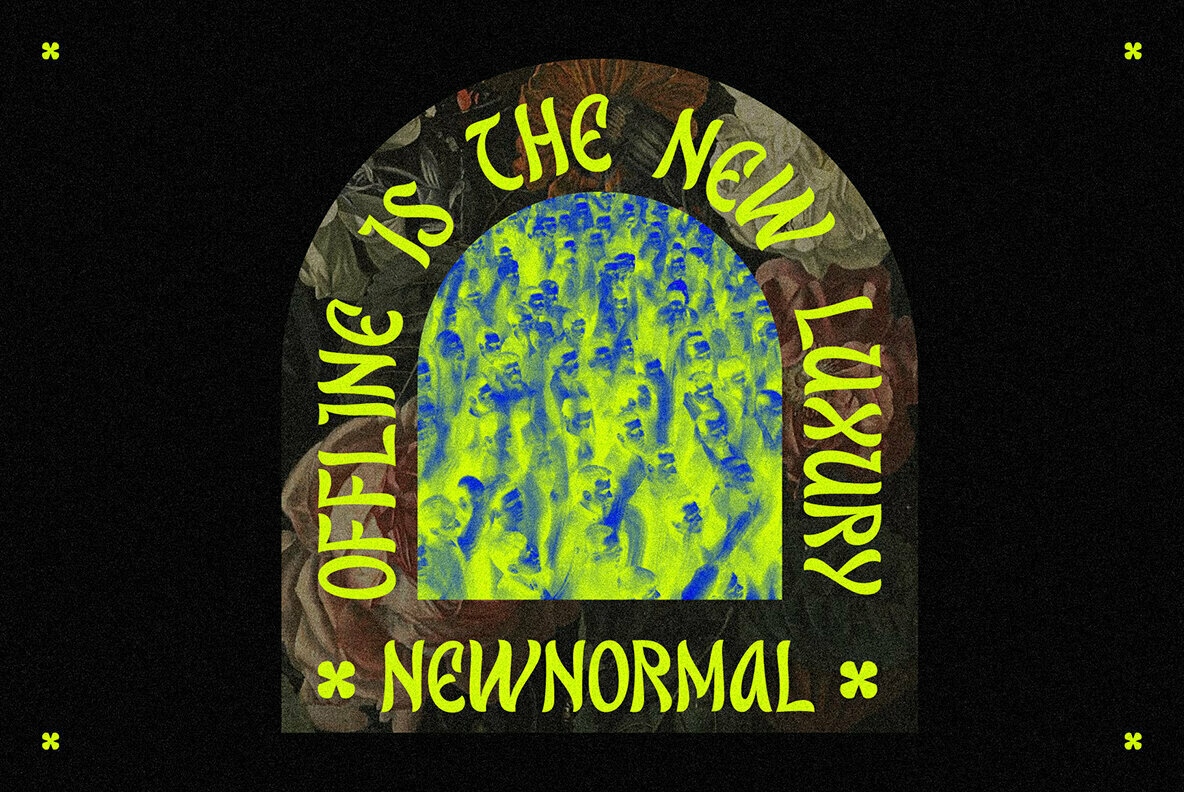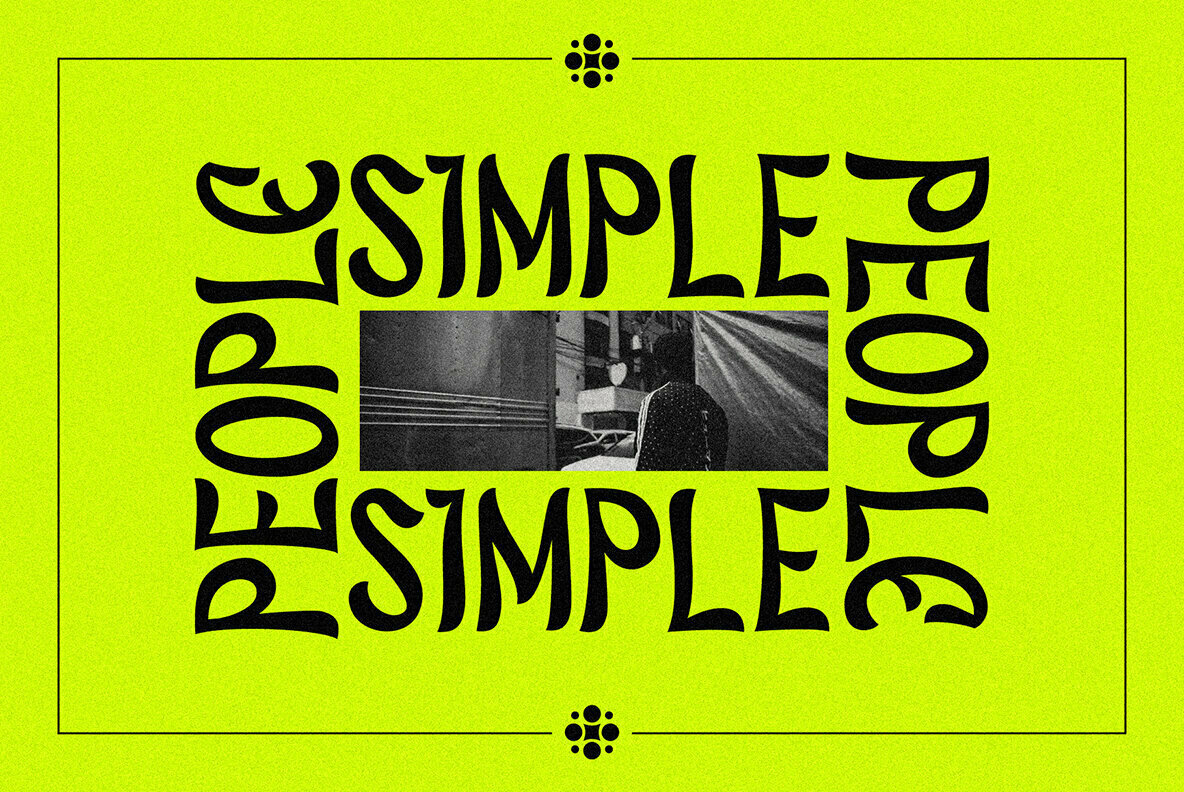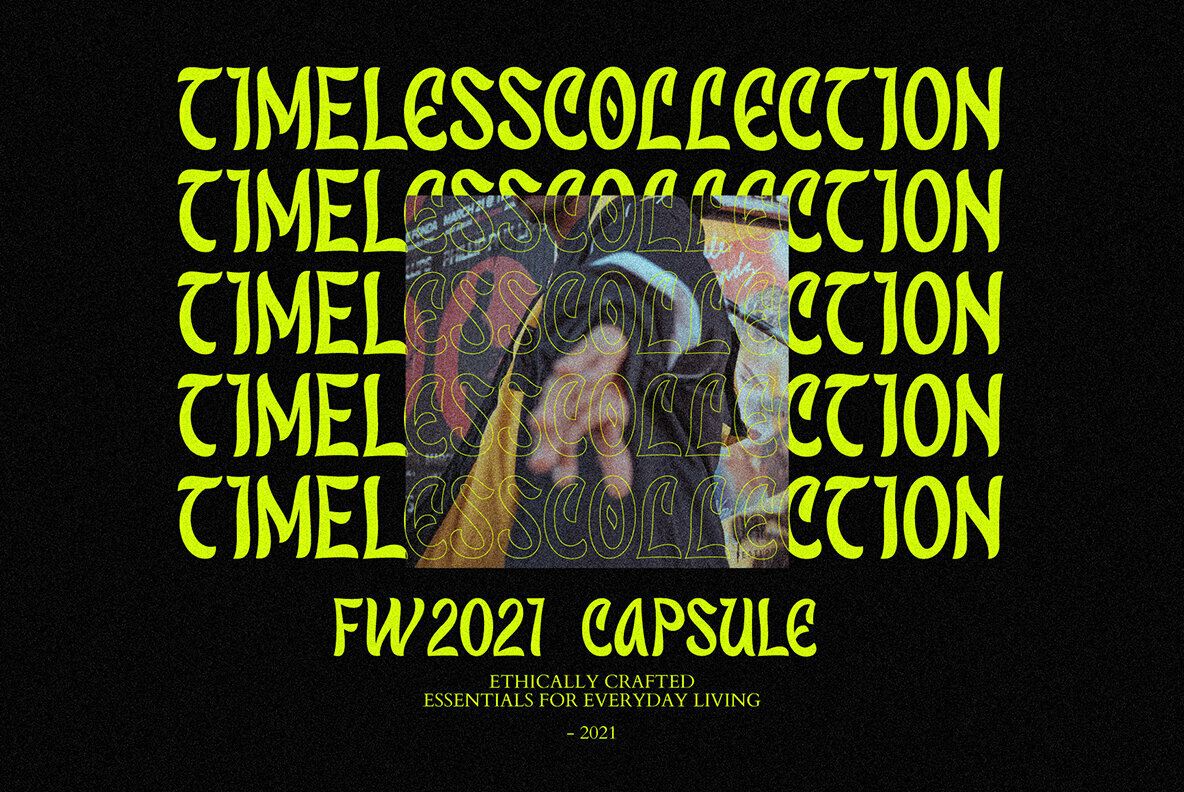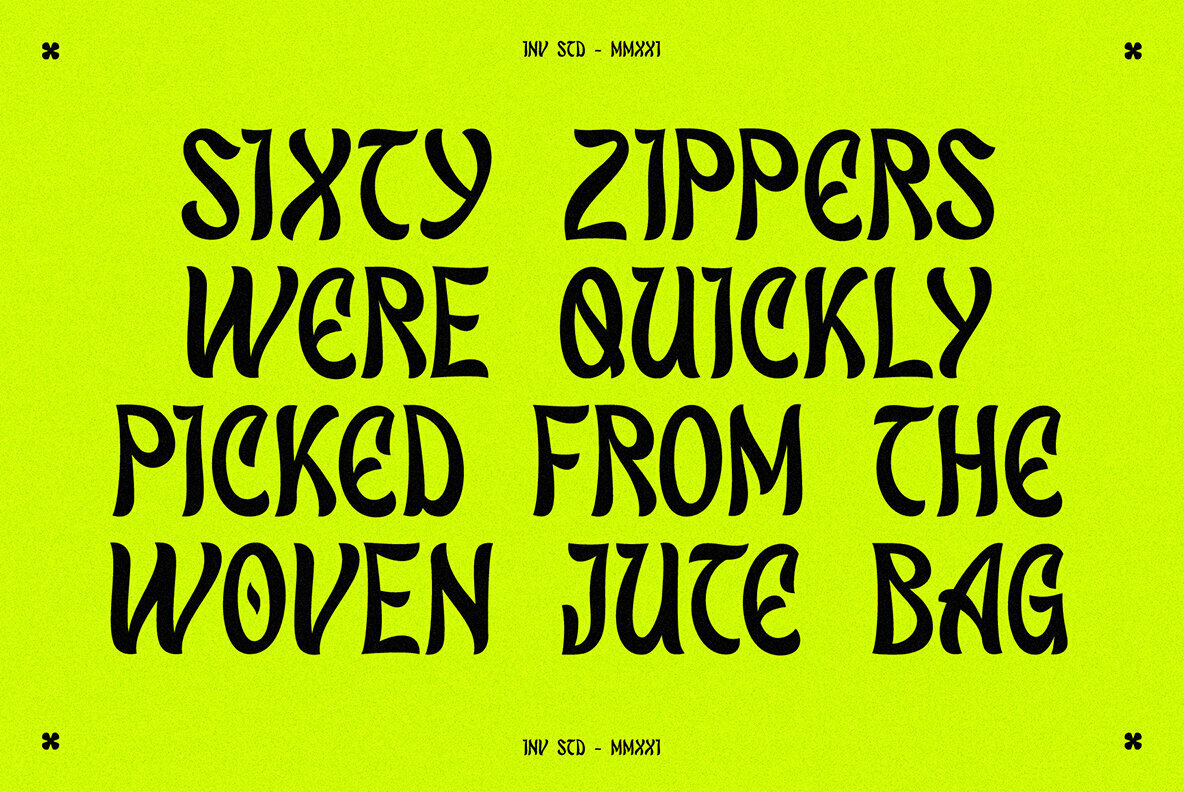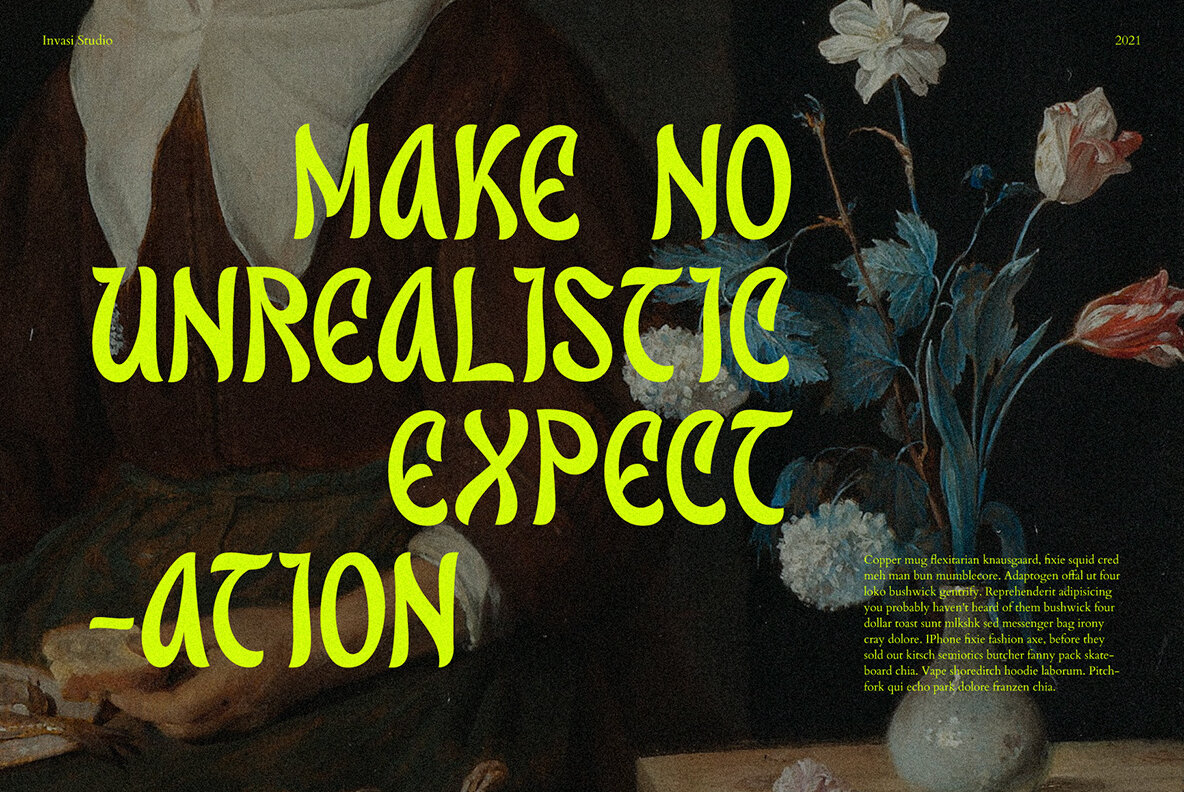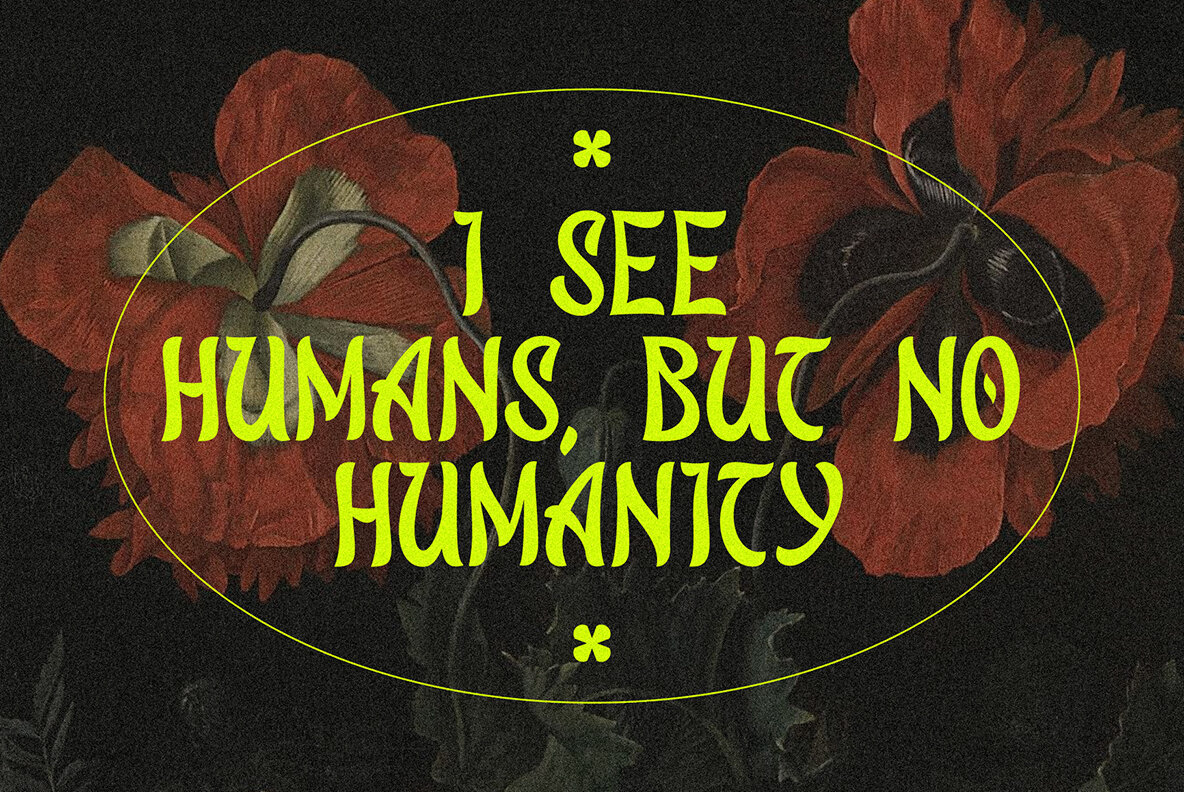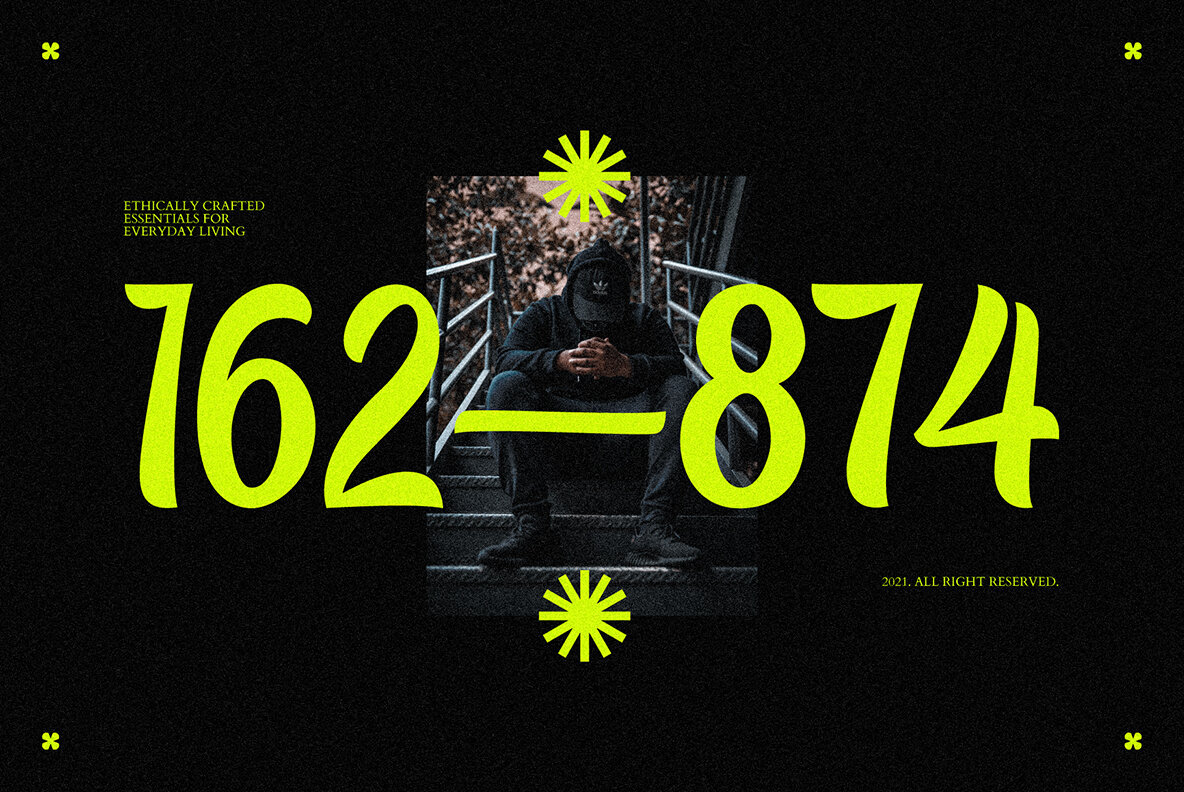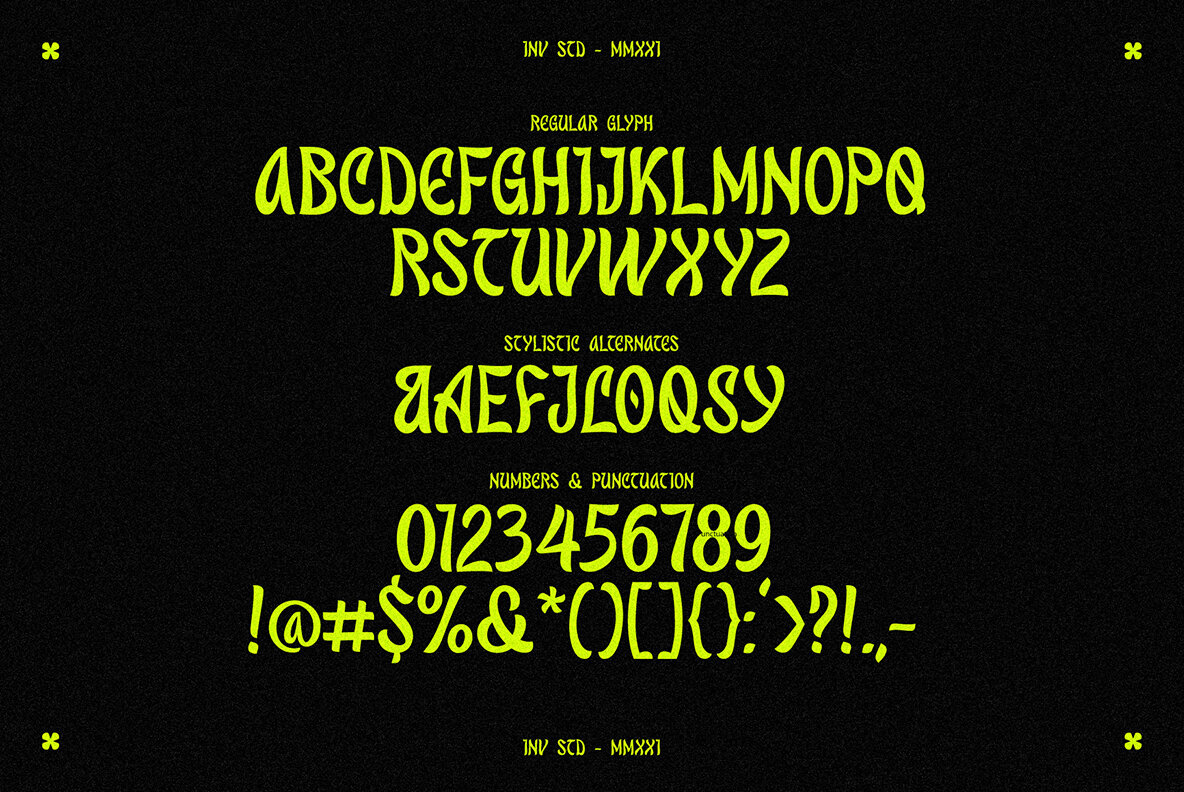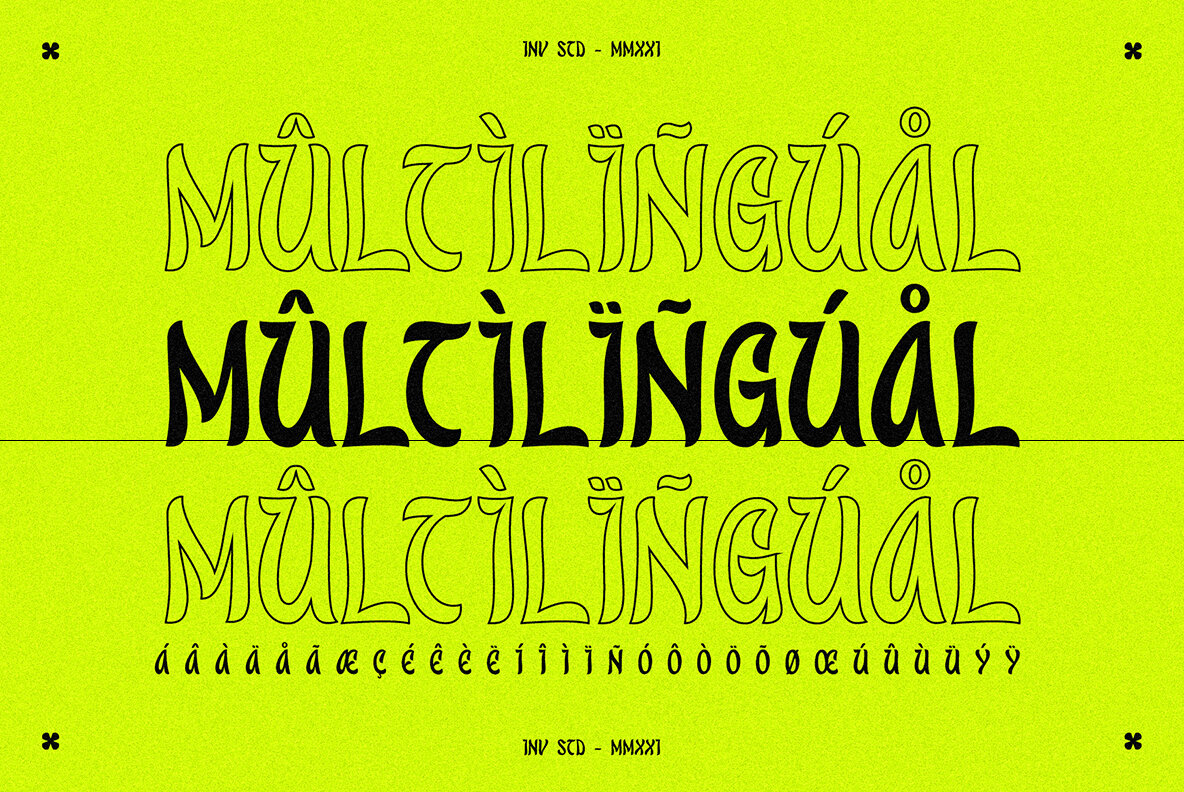
Sacred Musk Font
Sacred Musk
Sacred Musk from Invasi Studio evokes the unmistakable charm of the psychedelic era with its bold and playful design. This font captures the essence of retro aesthetics, imbuing your projects with a sense of nostalgia that resonates beautifully in modern applications. Perfect for a wide range of uses, Sacred Musk excels in adding authenticity to your creative work. Whether you're crafting impactful headings, eye-catching flyers, or unique book covers, this font delivers an engaging visual experience. It's an excellent choice for album covers, greeting cards, and logotypes, where its distinctive style can truly shine.Sacred Musk: A Retro Vibes Font